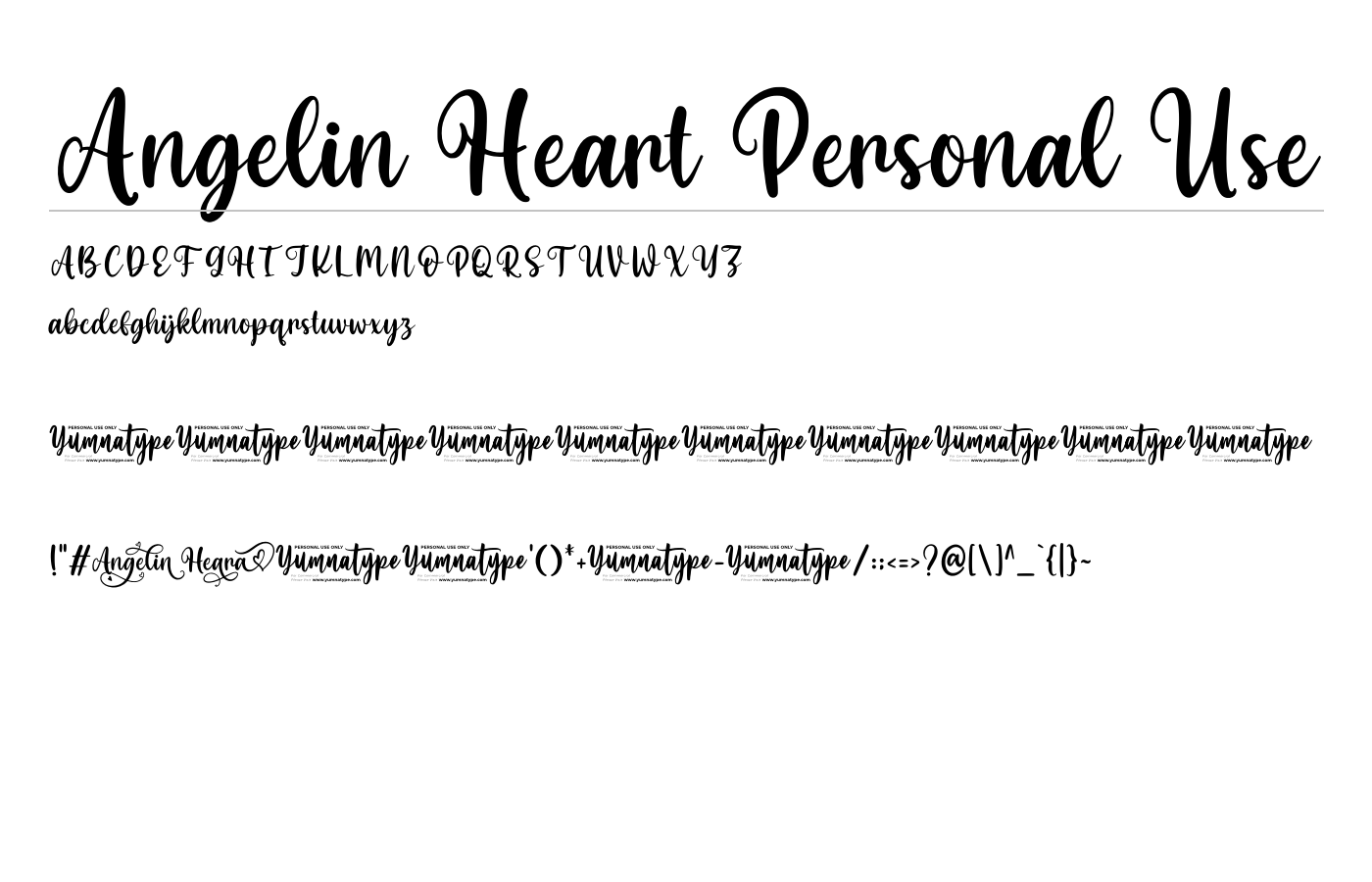
Angelin Heart Personal Use is an elegant script font with smooth, flowing strokes and a warm, handwritten feel. Its medium weight and moderately high x-height make it readable while maintaining a charming, playful personality, perfect for adding a personal touch to invitations, greeting cards, and feminine branding. This font works beautifully in designs that want to evoke warmth, creativity, and a graceful, modern style.
Angelin Heart Personal Use Font
About Angelin Heart Personal Use Font
| Font family | Angelin Heart Personal Use Font |